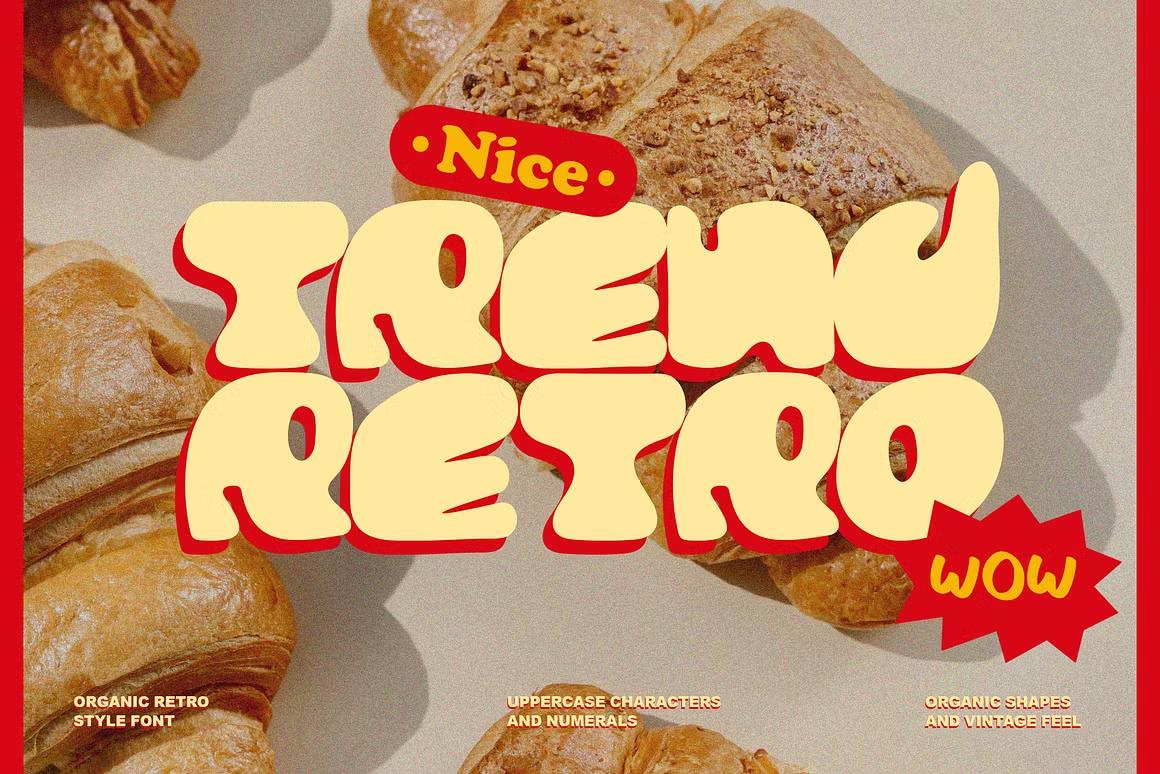
Trendretro - 80s & 90s Display Font
Trendretro is a unique typeface that merges vintage appeal with the flow of organic design. Each letter features soft, natural curves and fluid lines, echoing the look of hand-drawn artwork. The organic shapes create a lively, energetic feel, making it perfect for projects that seek to capture nostalgia with a fresh, modern vibe. Ideal for logos, posters, or branding, this retro-inspired font with its natural accents adds a sense of classic elegance and inventive flair.
"Trendretro" font consists of:
- Uppercase characters
- Numerals
- Punctuation